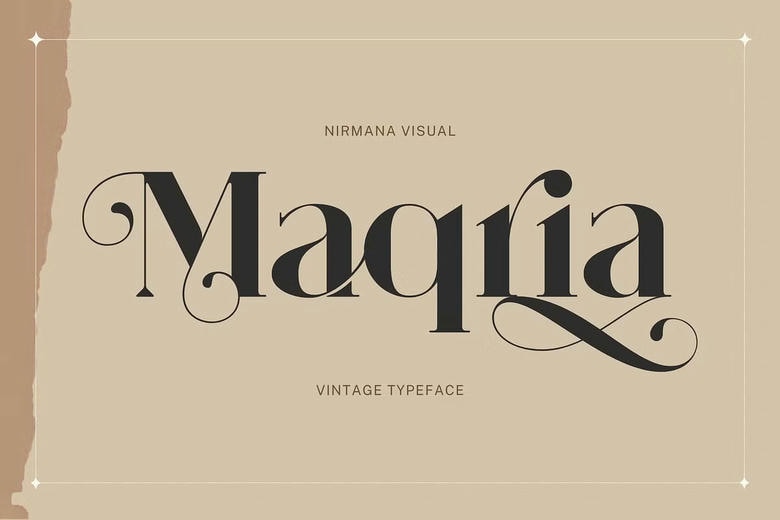
Maqria Font
Maqria Vintage – Branding Logo Font. Maqria Vintage Font offers beautiful typographic harmony for a diversity of design projects, including logos & branding, social media posts, advertisements & product designs.
Maqria Serif Font